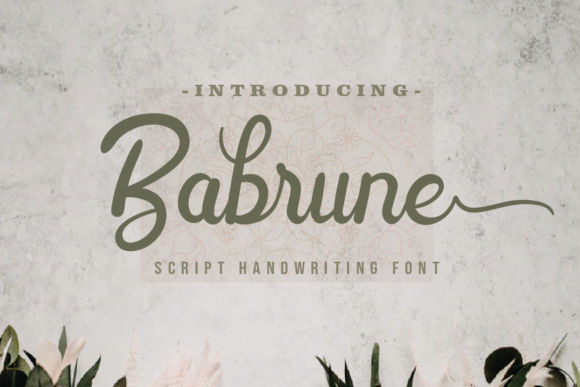
Adorn your designs with the allure of Babrune, a captivating script font that dances across the page with the grace of a handwritten note. Its enchanting strokes and delicate flourishes evoke a sense of romance and elegance, leaving an unforgettable impression on your audience.
Crafted by Amour Design, Babrune is more than just a font; it's an artistic expression that breathes life into your creations. Its versatility knows no bounds, from adding a touch of charm to greeting cards to commanding attention in headlines, Babrune effortlessly adapts to your design needs.
Let your words flow with the fluidity of Babrune, as its sweeping curves and graceful lines create a visual symphony. It's the perfect font for capturing the essence of love, friendship, and heartfelt moments, adding a personal touch to your designs that resonates with your audience.
Babrune is not just a font; it's an experience. It's the feeling of pen gliding across paper, the intimacy of a handwritten letter, the joy of expressing oneself through the art of calligraphy. With Babrune, you can bring that same magic to your digital creations, crafting designs that speak to the heart and leave a lasting impression.
Unlock the full potential of Babrune with its extensive range of glyphs and swashes, easily accessible through PUA encoding. Unleash your creativity and explore endless possibilities, adding intricate details and flourishes that elevate your designs to new heights.
Make Babrune your font of choice for any project that calls for a touch of romance, elegance, and timeless beauty. Its versatility and captivating charm will transform your words into works of art, leaving your audience spellbound.
Embark on a creative journey with Babrune, where your designs dance with emotion and leave an unforgettable mark on the world. Experience the magic of handwritten beauty brought to life in digital form.